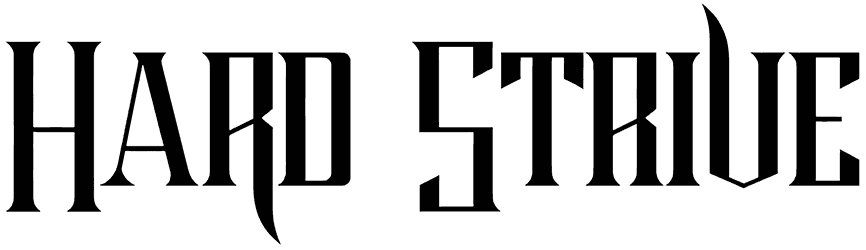
Hard Strive Font
Decorate the words of your medieval layout with this strong old-style font and amaze your followers. Hard Strive font will give a heavy and salient visual to your old English flyers. This biker font doesn’t support lowercase letters, numbers, and punctuation marks, but it offers two sets of caps with different details.